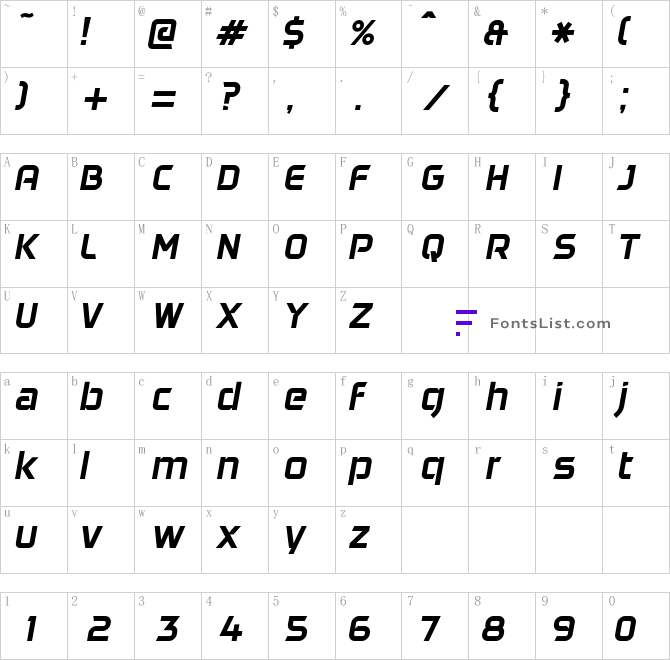
- Font Name:DAGGERSQUARE
DAGGERSQUARE-OBLIQUE.otf is a very beautiful artistic font, DAGGERSQUARE-OBLIQUE.otf is widely used in the design and printing of various books and pictures,DAGGERSQUARE-OBLIQUE.otf has a strong visual impact,DAGGERSQUARE-OBLIQUE.otf is a commonly used font in newspapers, magazines and books, and is used in posters, e-commerce Poster design, store design, logo design, font design and other fields.DAGGERSQUARE-OBLIQUE.